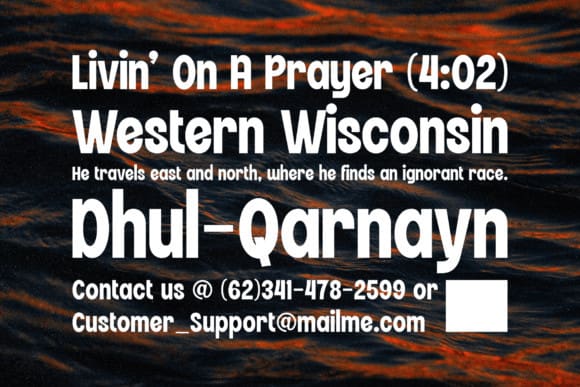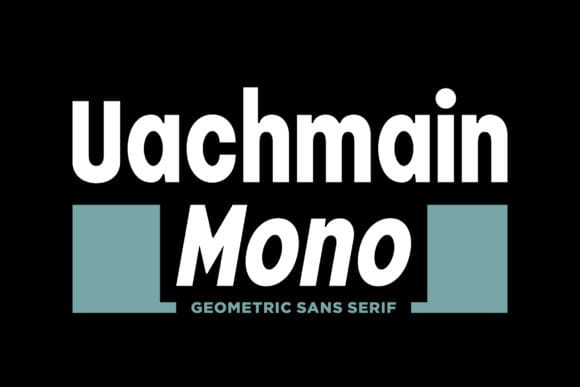
Uachmain Mono Font
Uachmain Mono Font is a geometric sans with a bit of monoline feels. Crafted with high attention to the details it fits best on a variety of s´designs such a logos, social media, business cards. websites and so much more.